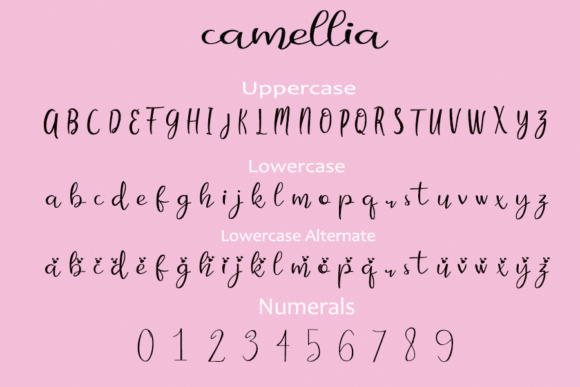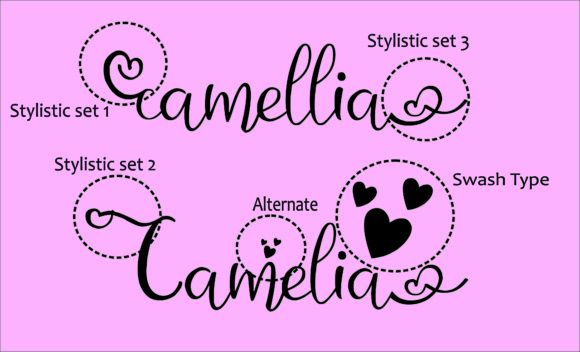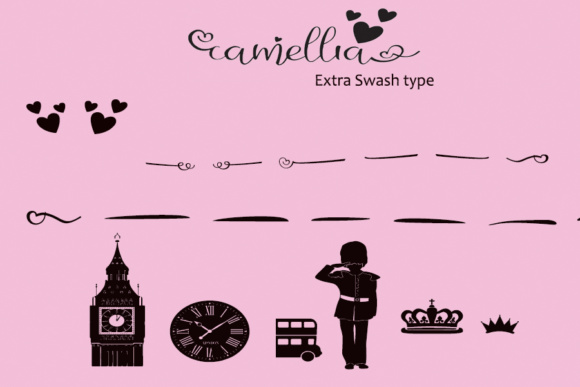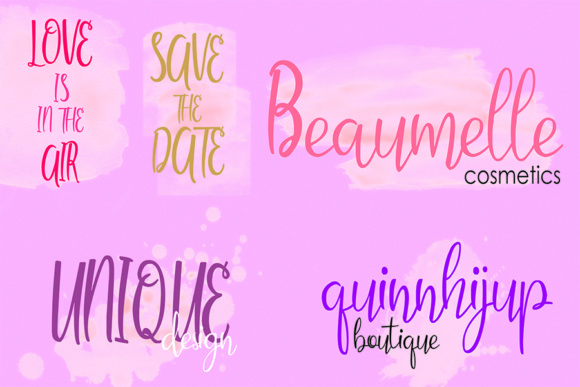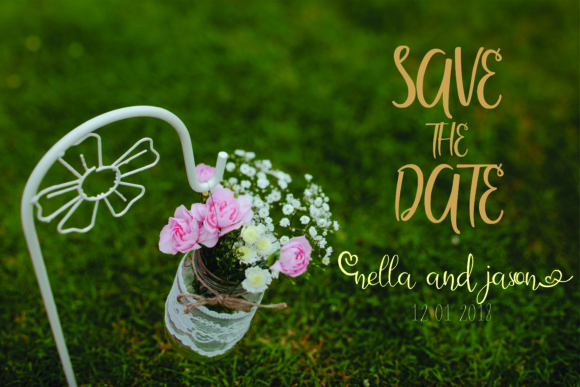
Unleashing Your Inner Designer: The Magic of Camellia Font
There’s something special about sitting at your desk, surrounded by scribbled notes, scattered papers, and a steaming cup of coffee, waiting for that elusive spark of creativity to strike. And when it does, the world seems to come alive with endless possibilities. For designers, this moment is a thrill, a chance to bring their vision to life. And, with the right tools, the magic happens.
That’s where the Camellia Font comes in – a stunning, girly handwritten typeface designed to help you create beautiful, one-of-a-kind designs. Whether you’re crafting invitations, social media graphics, or simply adding a personal touch to your blog, Camellia Font is the perfect companion. Its versatility and elegance make it an invaluable asset for designers, allowing you to add a touch of whimsy and sophistication to any project.
With Camellia Font, the possibilities are endless, and your creative vision can take center stage. So, what are you waiting for? Let the magic of this beautiful font inspire you to create something truly special.
Camellia Font Key Features
• Font Family: Camellia, a traditional Japanese font designed to mimic handwriting
• Unique Characteristics: Handwritten-like design, with subtle variations in letterforms to create a natural, cursive feel
• Language Support: Supports a wide range of languages, including Japanese, English, and many others
Camellia Font Review
First of all, let me start by saying that Camellia Font has some really great qualities. ✨ One of the things that stands out to me is the beautiful, elegant aesthetic it brings to any design. It’s perfect for creating a sophisticated and refined look that’s sure to impress. ✨ The font also comes with a wide range of weights and styles, making it incredibly versatile and easy to use.
Another great aspect of Camellia Font is its excellent legibility. ✨ The letters are clear and easy to read, even at smaller font sizes. This makes it perfect for body text, headings, and even large blocks of text. ✨ The font also supports a wide range of languages, which is a major plus for designers who work with international clients.
Now, onto the limitations. ⚠️ One of the things that I think could be improved is the lack of bold and italic styles. ⚠️ While the font does come with a range of weights, it’s a bit limited in terms of bold and italic options. ⚠️ Additionally, the font can be a bit tricky to use at very small font sizes, which can be a problem for designers who need to work with tiny text.
• Beautiful, elegant aesthetic
• Wide range of weights and styles
• Excellent legibility
• Supports a wide range of languages
• Lack of bold and italic styles
• Can be tricky to use at very small font sizes
Overall, I would say that Camellia Font is a great choice for designers who want to create a sophisticated and refined look. While it may have some limitations, its strengths far outweigh its weaknesses. With a bit of creativity and experimentation, Camellia Font can be a valuable addition to any designer’s toolkit.
The Camellia Font is ideal for:
• Creating elegant and sophisticated designs.
• Adding a touch of vintage charm to your projects.
• Designing wedding invitations, stationery, and other formal materials.
Tips for Getting the Most Out of Camellia Font
To get the most out of the Camellia Font, try:
• Pairing it with bold and geometric fonts for contrast.
• Using it in combination with floral patterns and illustrations.
• Experimenting with different font sizes and colors to achieve a unique look.
We recommend using a font size between 12-14 points for body text and a line height of at least 1.2 to 1.5 times the font size. This will ensure optimal readability and a pleasant viewing experience for your users. You can adjust these settings to suit your specific design requirements.